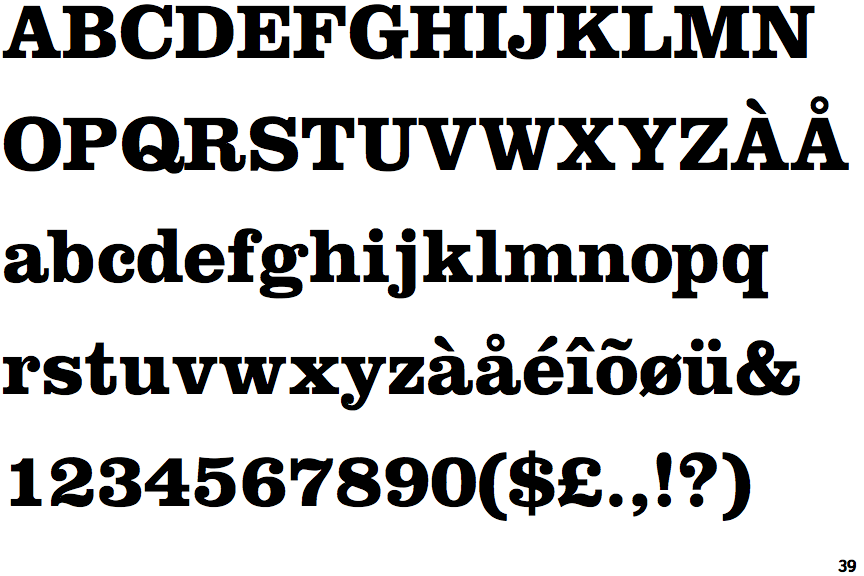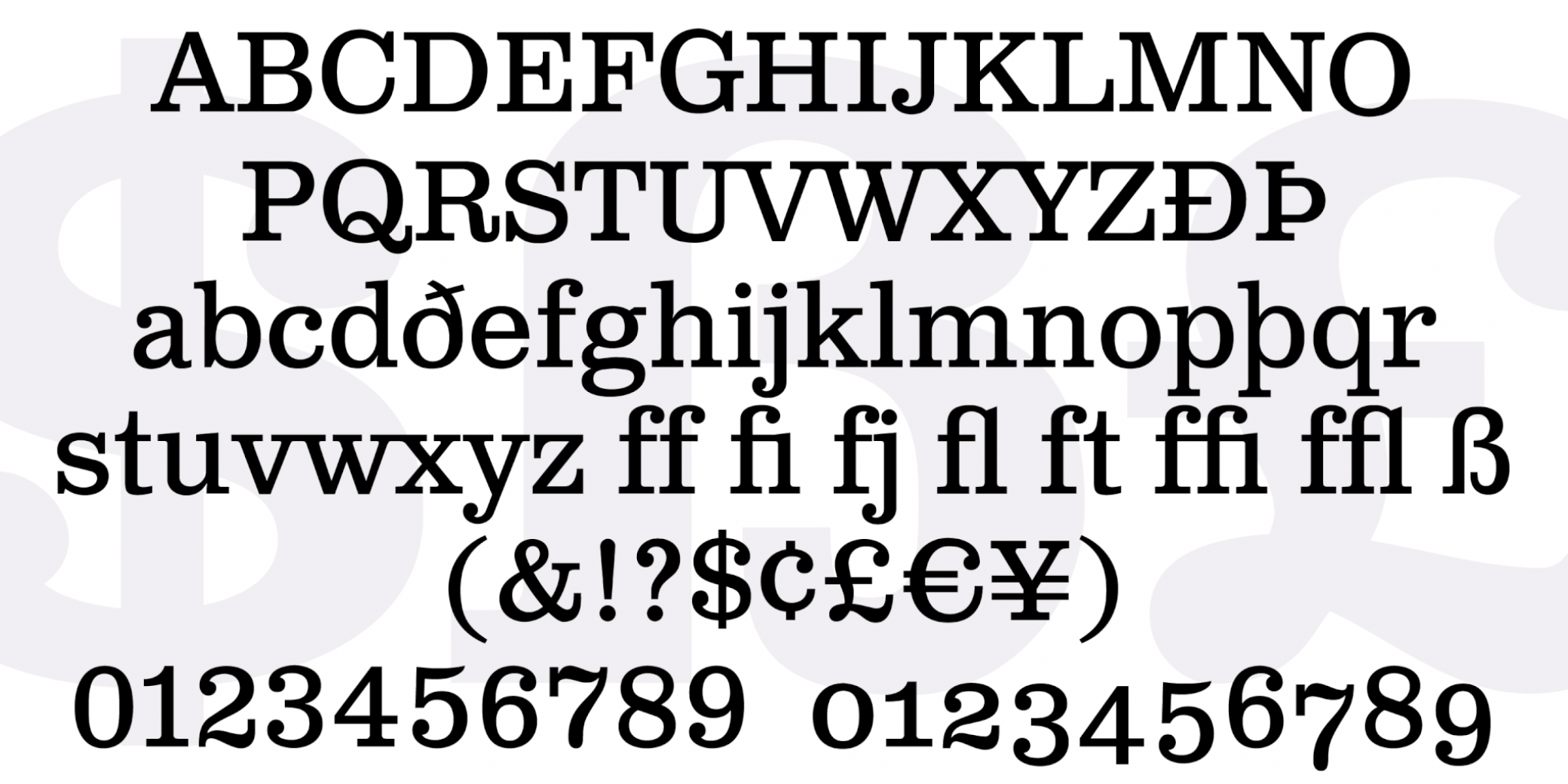
Clarendon Bold Font - Discover the free clarendon bold font at free font download ! We have 5 free bold, clarendon fonts to offer for direct downloading · 1001 fonts is your favorite site for free fonts since 2001 Explore clarendon text designed by patrick griffin at adobe fonts. This font features bold, strong strokes with a classic slab serif design. A slab serif typeface with 4 styles, available from adobe fonts for sync and web. Clarendon bold is a classic slab serif font that exudes a sense of strength, modernity, and timeless elegance. Installable on pc, mac, linux, ios, and android platforms. The letters have a robust and sturdy appearance, characterized by thick.
This font features bold, strong strokes with a classic slab serif design. Explore clarendon text designed by patrick griffin at adobe fonts. Clarendon bold is a classic slab serif font that exudes a sense of strength, modernity, and timeless elegance. Installable on pc, mac, linux, ios, and android platforms. Discover the free clarendon bold font at free font download ! The letters have a robust and sturdy appearance, characterized by thick. We have 5 free bold, clarendon fonts to offer for direct downloading · 1001 fonts is your favorite site for free fonts since 2001 A slab serif typeface with 4 styles, available from adobe fonts for sync and web.
This font features bold, strong strokes with a classic slab serif design. Installable on pc, mac, linux, ios, and android platforms. Clarendon bold is a classic slab serif font that exudes a sense of strength, modernity, and timeless elegance. We have 5 free bold, clarendon fonts to offer for direct downloading · 1001 fonts is your favorite site for free fonts since 2001 Explore clarendon text designed by patrick griffin at adobe fonts. A slab serif typeface with 4 styles, available from adobe fonts for sync and web. Discover the free clarendon bold font at free font download ! The letters have a robust and sturdy appearance, characterized by thick.
Clarendon bold is a classic slab serif font that exudes a sense of strength, modernity, and timeless elegance. A slab serif typeface with 4 styles, available from adobe fonts for sync and web. Discover the free clarendon bold font at free font download ! The letters have a robust and sturdy appearance, characterized by thick. This font features bold, strong.
The letters have a robust and sturdy appearance, characterized by thick. Installable on pc, mac, linux, ios, and android platforms. Discover the free clarendon bold font at free font download ! A slab serif typeface with 4 styles, available from adobe fonts for sync and web. We have 5 free bold, clarendon fonts to offer for direct downloading · 1001.
Explore clarendon text designed by patrick griffin at adobe fonts. The letters have a robust and sturdy appearance, characterized by thick. This font features bold, strong strokes with a classic slab serif design. Installable on pc, mac, linux, ios, and android platforms. We have 5 free bold, clarendon fonts to offer for direct downloading · 1001 fonts is your favorite.
Identifont Clarendon Bold
Explore clarendon text designed by patrick griffin at adobe fonts. Installable on pc, mac, linux, ios, and android platforms. This font features bold, strong strokes with a classic slab serif design. Clarendon bold is a classic slab serif font that exudes a sense of strength, modernity, and timeless elegance. Discover the free clarendon bold font at free font download !
A slab serif typeface with 4 styles, available from adobe fonts for sync and web. Explore clarendon text designed by patrick griffin at adobe fonts. Discover the free clarendon bold font at free font download ! Clarendon bold is a classic slab serif font that exudes a sense of strength, modernity, and timeless elegance. We have 5 free bold, clarendon.
Clarendon (Haas) DAYLIGHT FONTS
Installable on pc, mac, linux, ios, and android platforms. A slab serif typeface with 4 styles, available from adobe fonts for sync and web. Discover the free clarendon bold font at free font download ! Clarendon bold is a classic slab serif font that exudes a sense of strength, modernity, and timeless elegance. The letters have a robust and sturdy.
Clarendon Font Free Download
A slab serif typeface with 4 styles, available from adobe fonts for sync and web. Clarendon bold is a classic slab serif font that exudes a sense of strength, modernity, and timeless elegance. Discover the free clarendon bold font at free font download ! Installable on pc, mac, linux, ios, and android platforms. Explore clarendon text designed by patrick griffin.
Clarendon Text Pro Canada Type
The letters have a robust and sturdy appearance, characterized by thick. We have 5 free bold, clarendon fonts to offer for direct downloading · 1001 fonts is your favorite site for free fonts since 2001 Explore clarendon text designed by patrick griffin at adobe fonts. Discover the free clarendon bold font at free font download ! This font features bold,.
Clarendon W02 Expanded Bold 1.1 Fonts Free Download
A slab serif typeface with 4 styles, available from adobe fonts for sync and web. This font features bold, strong strokes with a classic slab serif design. Explore clarendon text designed by patrick griffin at adobe fonts. The letters have a robust and sturdy appearance, characterized by thick. Discover the free clarendon bold font at free font download !
This Font Features Bold, Strong Strokes With A Classic Slab Serif Design.